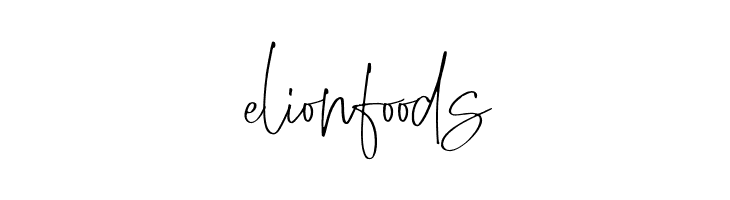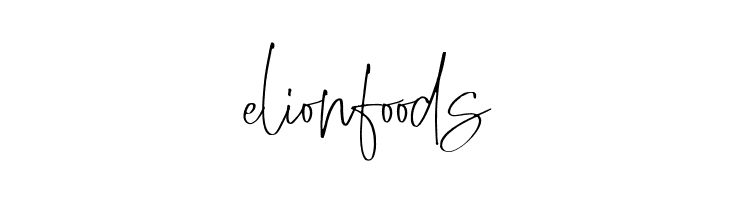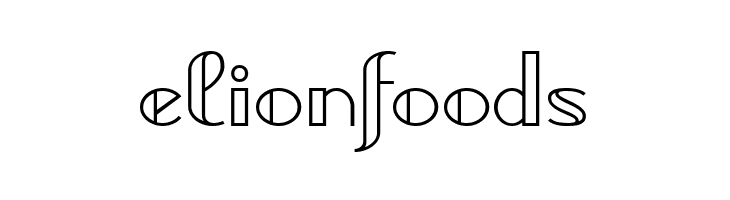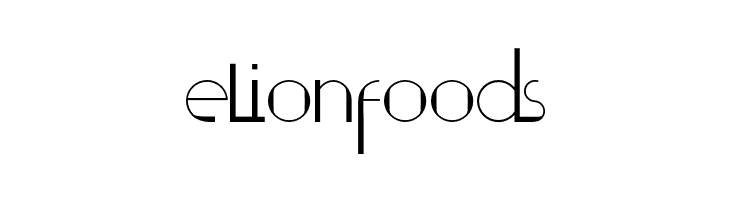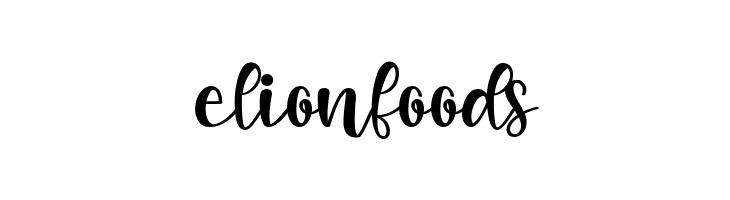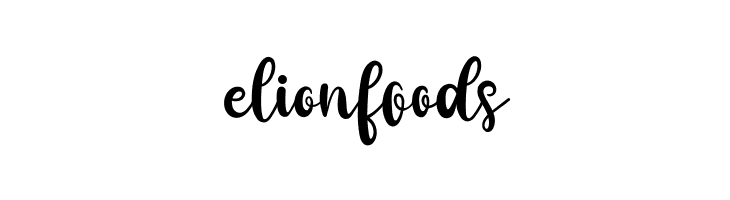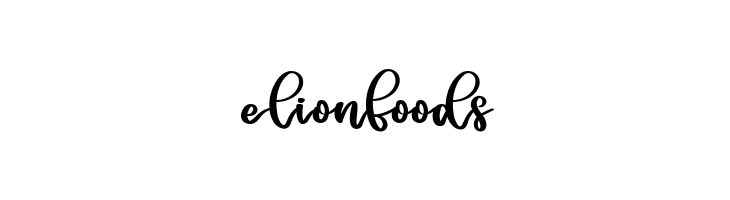
A graceful and elegant script font with flowing, connected letters.
A casual, handwritten font with elegant, elongated letters and a dynamic, lively appearance.
A delicate, flowing handwritten font with elegant, thin strokes.
An elegant, high-contrast typeface with a modern and sophisticated design.
A modern, geometric font with sharp edges and clean lines.
A modern, geometric font with sleek lines and a minimalist aesthetic.
A playful, bold, and rounded script font with a casual, friendly style.
A playful and elegant script font with decorative swashes and flowing letterforms.
A playful and elegant script font with a handwritten style.
A whimsical and elegant script font with flowing, cursive letterforms.